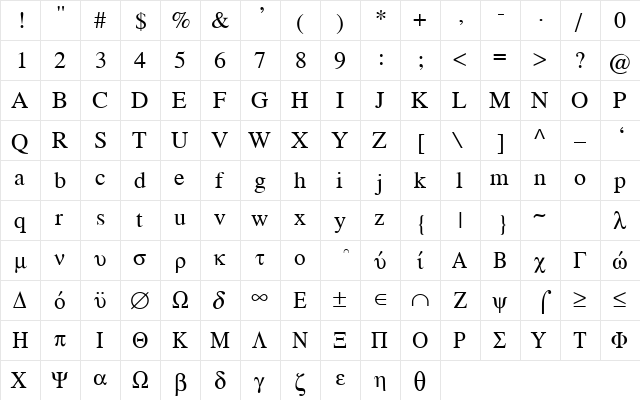
Meduse Normal
Design Context for Meduse Typeface
Meduse takes a measured approach to typography — its balanced proportions and neutral character make it a reliable workhorse for both digital and print work.